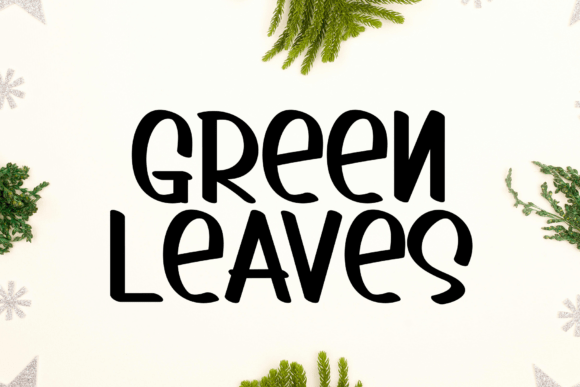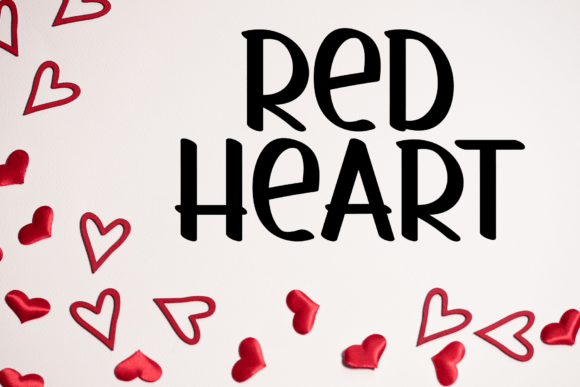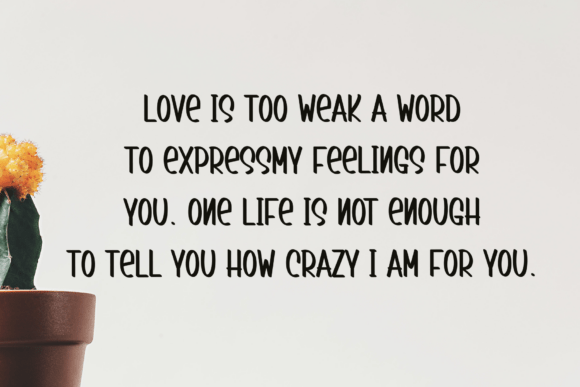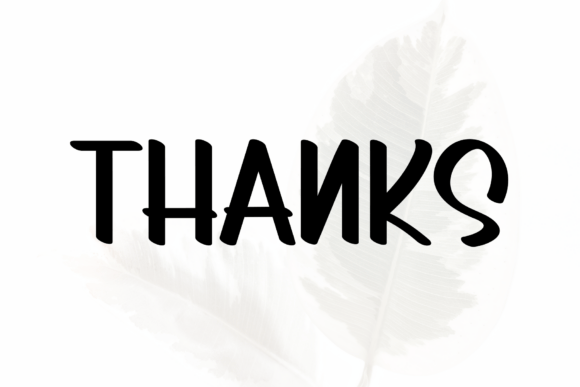
The Emotion Font: A Sweet and Beautiful Handwritten Delight
Have you ever been working on a design project, and suddenly, you’re stuck on finding the perfect font? I recall a recent experience where I was tasked with creating a whimsical invitation for a friend’s baby shower. I wanted a font that would convey warmth, playfulness, and a touch of elegance. That’s when I stumbled upon the Emotion font, and it instantly stole my heart! 💕
A Personal Review: What I Love and What to Consider
- Emotion is a sweet and beautiful handwritten font that features characters dancing along the baseline, giving it a lively and carefree feel.
- The font is incredibly versatile and can be used for a wide range of design projects, from invitations and greeting cards to social media graphics and branding materials.
- It’s perfect for adding a cozy accent to any design, making it ideal for crafters and creative hobbyists who want to add a personal touch to their work.
- The font is well-suited for digital and print applications, and its clear, legible design ensures that it will read beautifully in various sizes.
- While the font is generally excellent, some users may find that the dancing baseline can make it challenging to use for body text or longer blocks of content.
- As with any handwritten font, there may be some variations in letter spacing and sizing, which can affect the overall flow of the text.
- ⚠️ Be aware that some platforms or software may not support the font’s OpenType features or glyphs, which could limit its full potential.
The Story Behind Emotion Font: A Designer Inspiration
The Emotion font was designed by a talented typographer who aimed to create a handwritten font that would convey warmth, kindness, and a sense of connection. Inspired by the flowing movements of handwriting, the designer crafted a font that would dance along the baseline, creating a lively and engaging feel. The result is a beautiful and versatile font that has captured the hearts of designers and crafters alike.
Q: What type of designs is Emotion font best suited for?
A: Emotion font is perfect for designs that require a personal touch, such as invitations, greeting cards, social media graphics, and branding materials.
Q: Does Emotion font support OpenType features?
A: Yes, Emotion font supports OpenType features, including stylistic alternates, glyphs, and swashes, which can be accessed in compatible design software.
Q: Can I use Emotion font for digital and print applications?
A: Yes, Emotion font is suitable for both digital and print applications, and its clear, legible design ensures that it will read beautifully in various sizes.